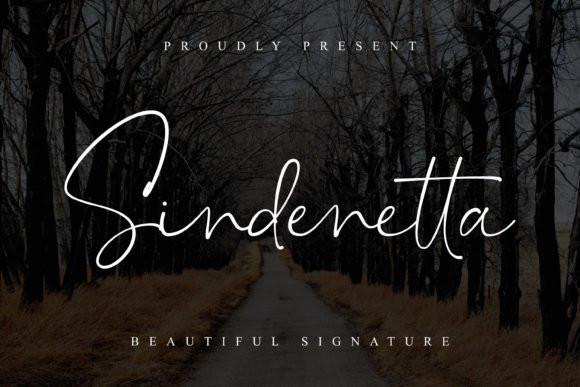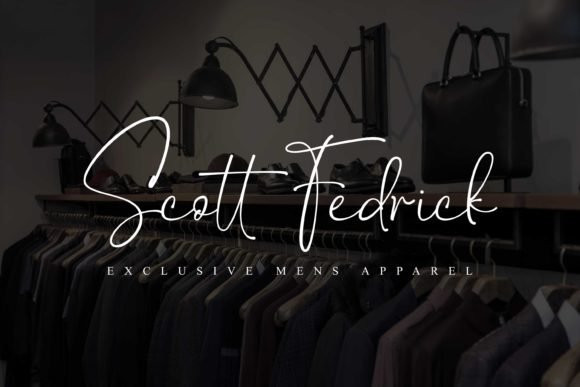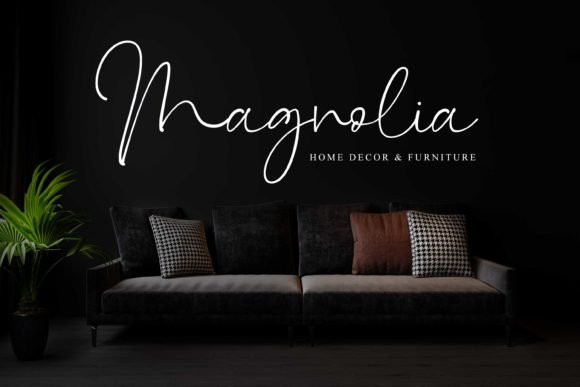
Sindenetta Font
Sindenetta is a natural script font carefully created with a touch of elegance. Whether you’re looking for fonts for Instagram or calligraphy scripts for DIY projects, this font will turn any creative idea into a true piece of art!